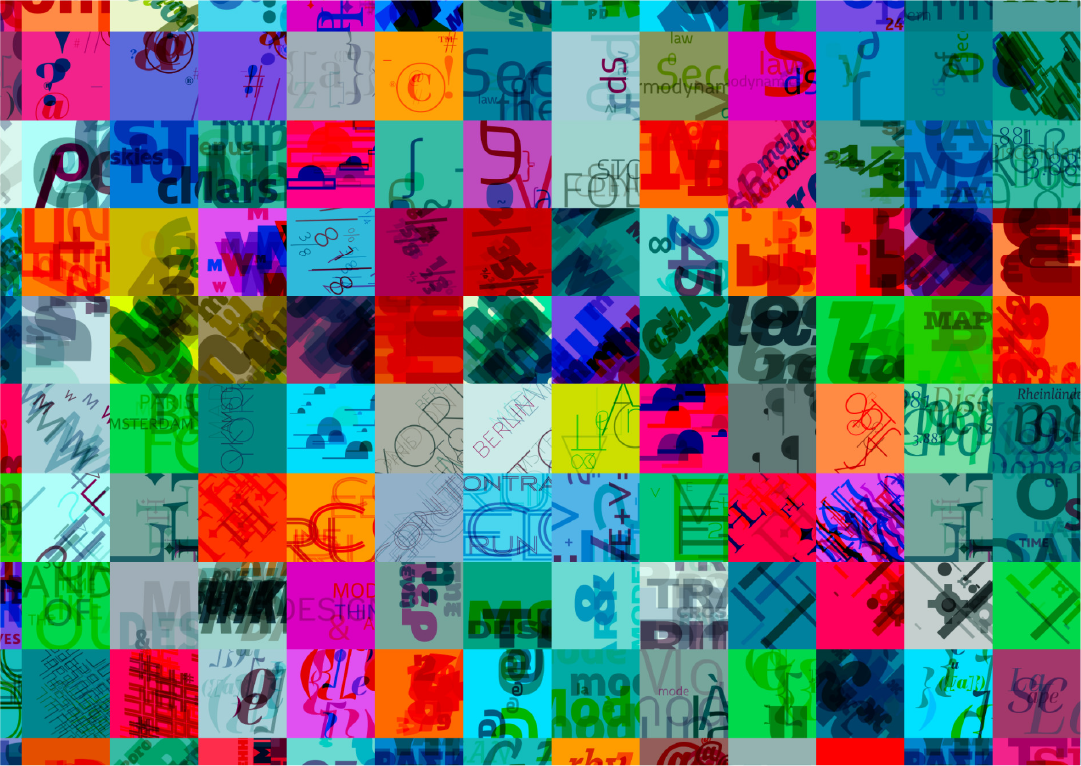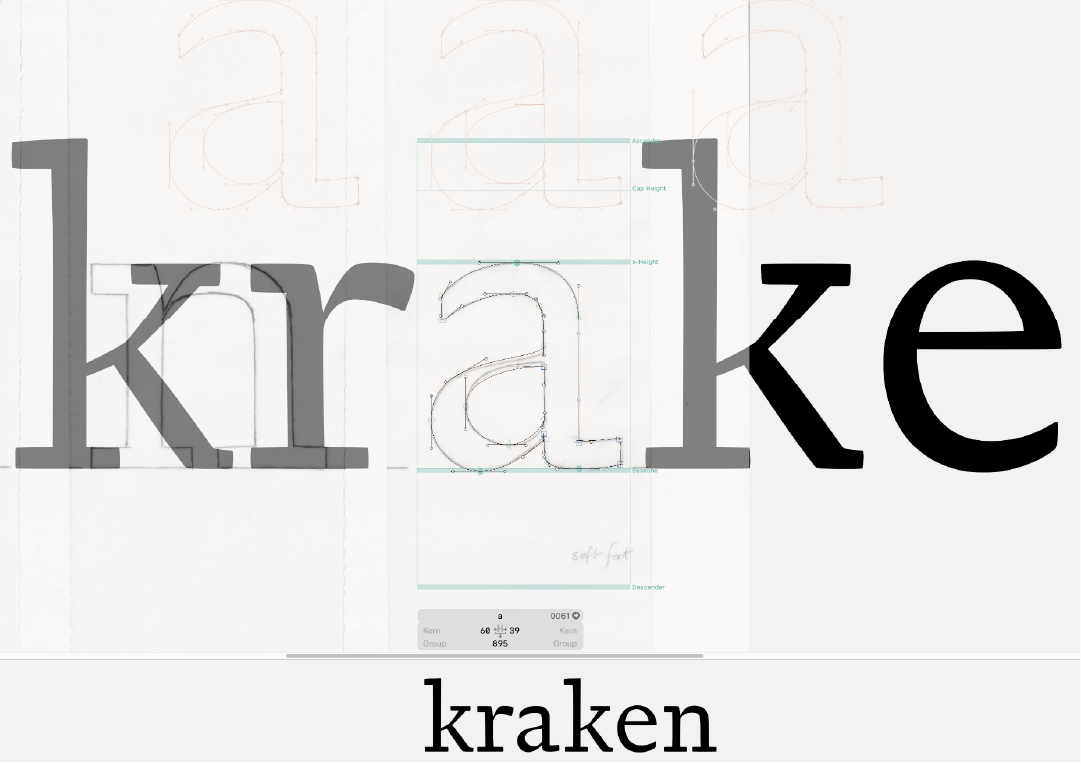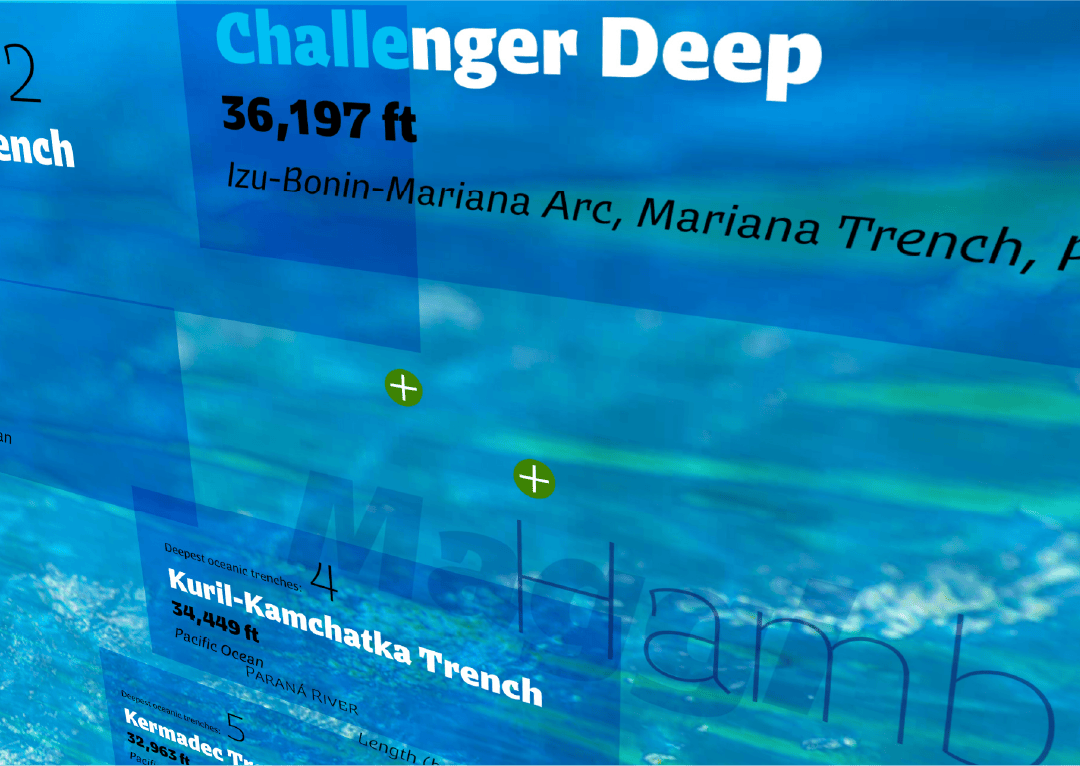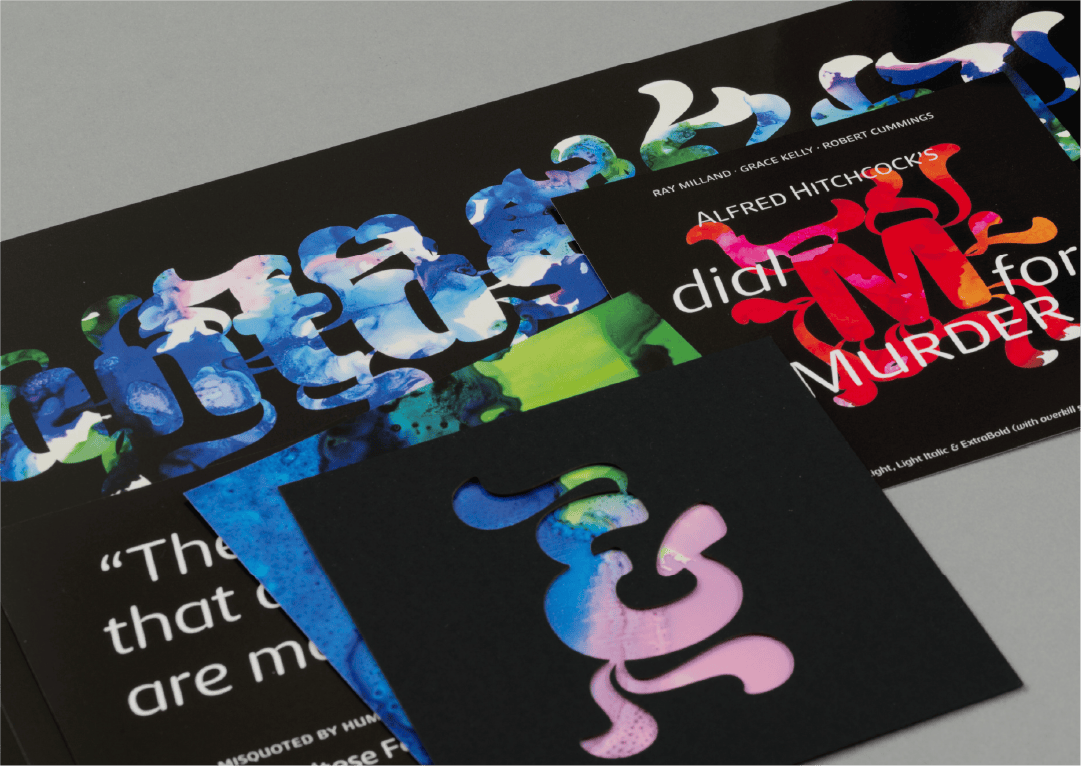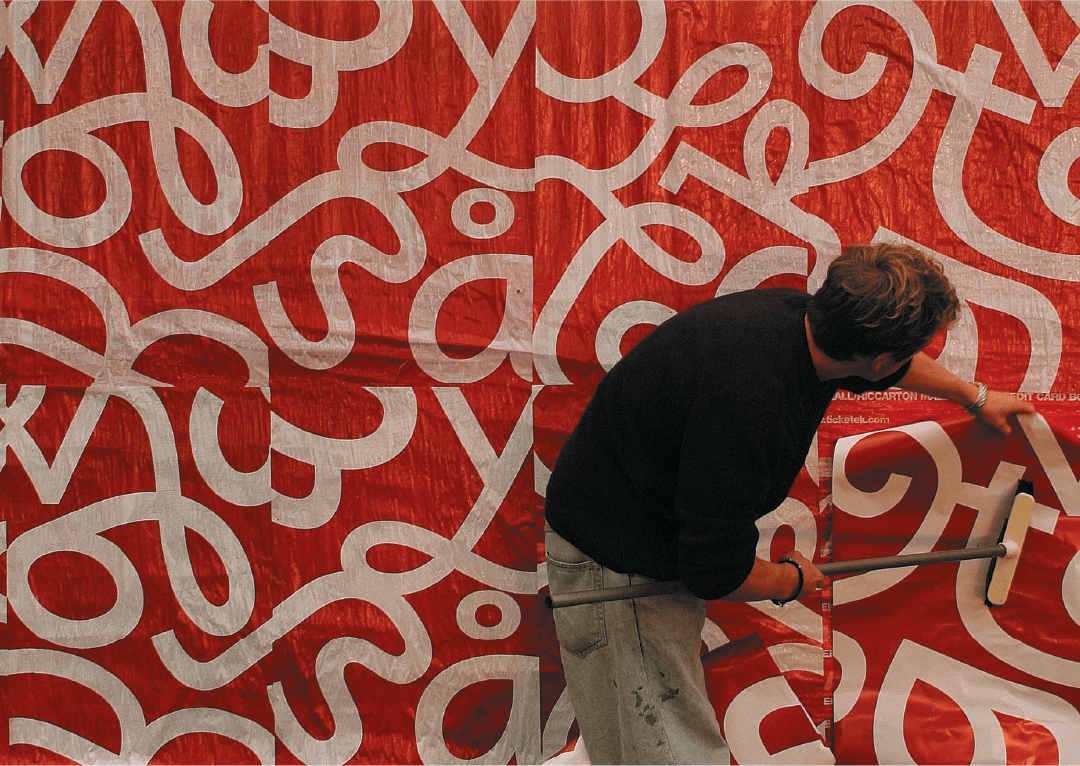
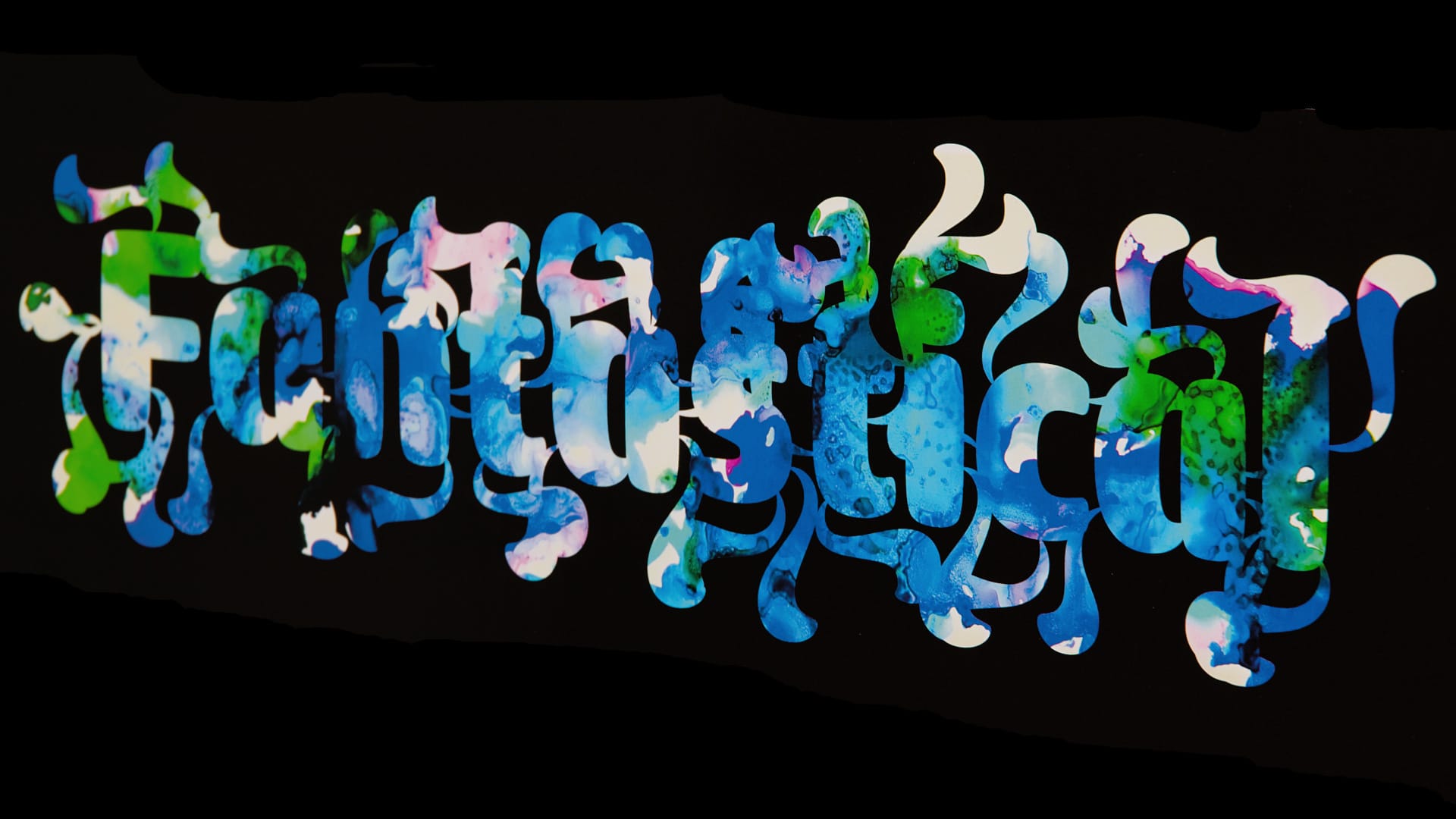
If we are at a point where all the type design styles have been explored then we may as well hand it over to AI and go and do something more rewarding. But, if we’re not ready to give up, then are there ways to perhaps rethink how we approach the design of type. And embrace and explore the unique trait of being human – creative thinking.
Jeremy Tankard (1969) is a graduate of Central Saint Martins and the Royal College of Art. Initially working at Addison Design Consultants and then Wolff Olins, he left corporate design in order to pursue his interests in type as an independent type designer in 1998.
Designing type since the early 90s, his first typeface Disturbance was released through FontShop International in 1993. This was followed by Bliss in 1996 as part of the Agfa Creative Alliance and later typefaces for Adobe and Microsoft. Eclectic in inspiration and reference, Jeremy continues to design a wide range of type that seek to offer new visual textures for creative use. Some designs are bespoke commissions but many are available for general use through his own foundry at typography.net.
He is a member of the Double Crown Club, a past Chair of the Wynkyn de Worde Society, and current Chair of Letter Exchange.